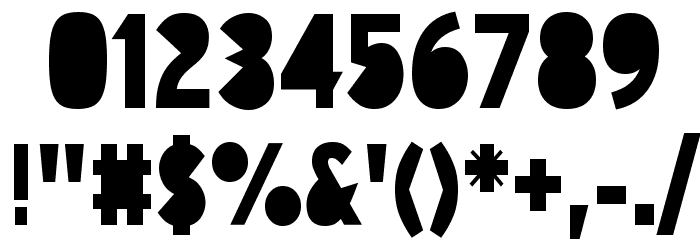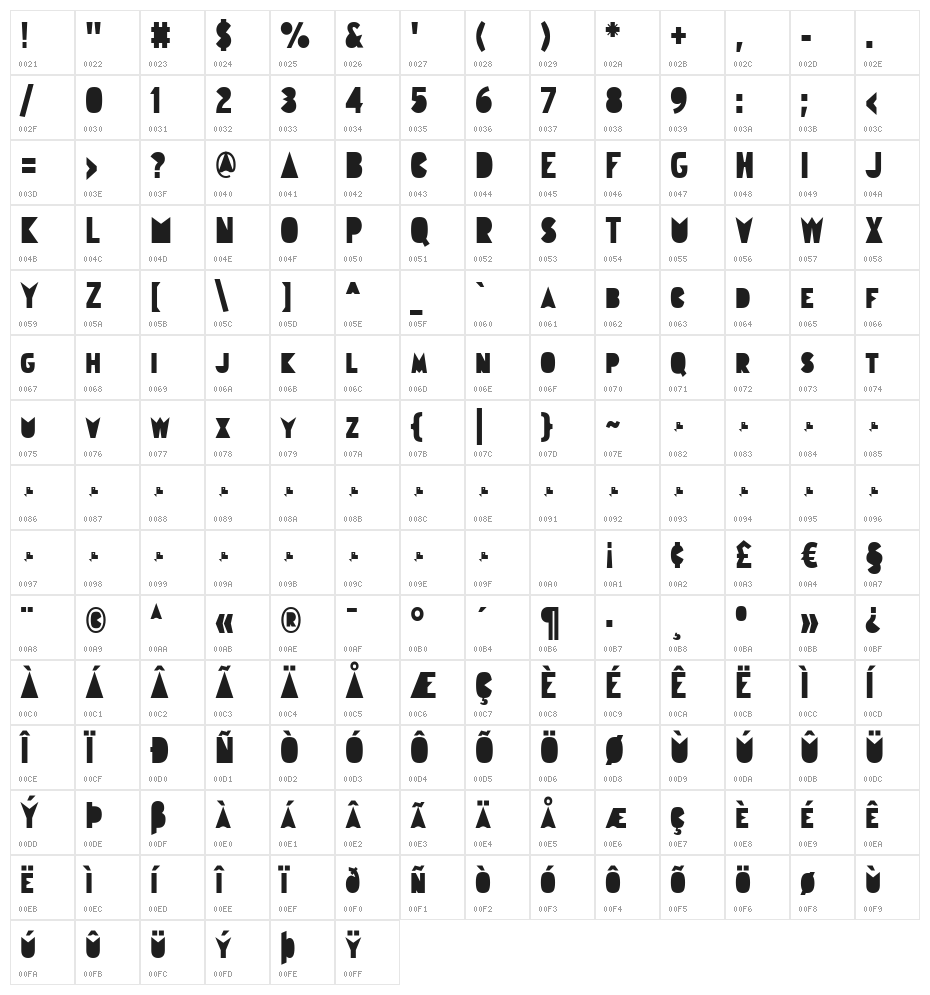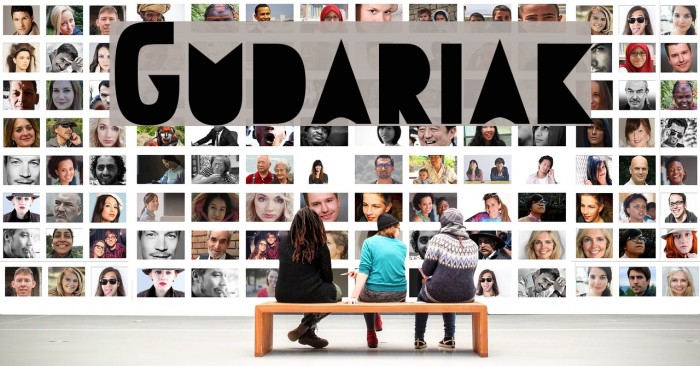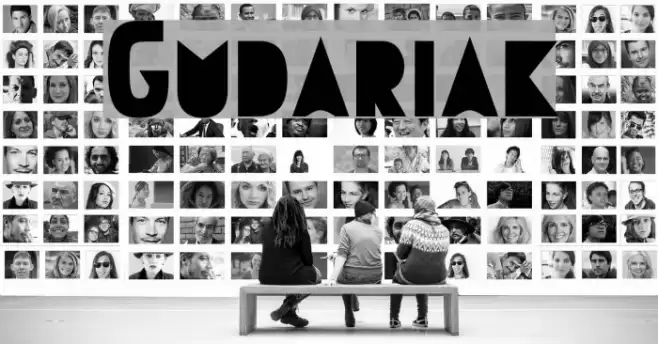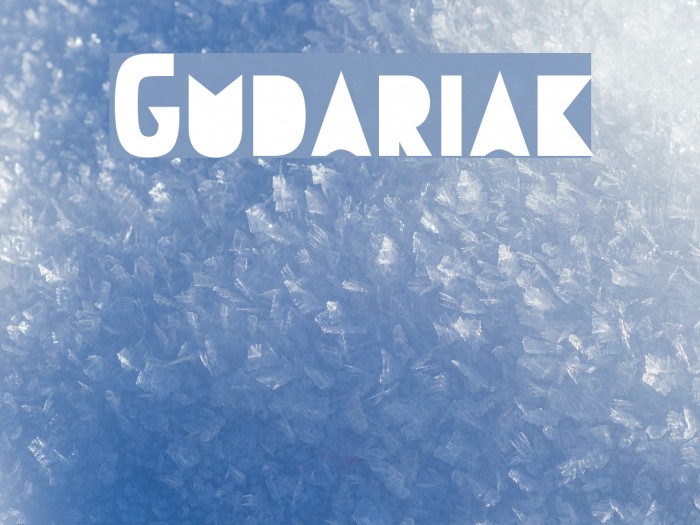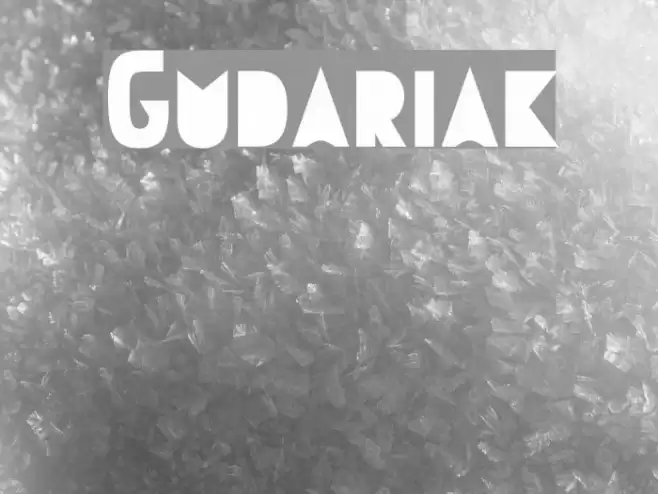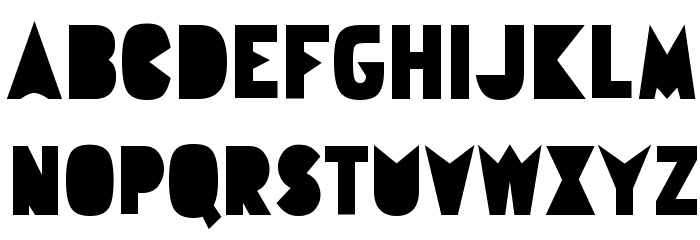
Gudariak Font
Gudariak Description
This font features bold, geometric shapes with a distinct, angular design. The characters are crafted with sharp edges and a strong presence, making them stand out prominently. The uppercase letters are particularly striking, with unique cuts and angles that give the font a modern and edgy feel. The numbers and special characters maintain this bold style, ensuring consistency across all elements. The overall appearance is both artistic and assertive, suitable for making a strong visual impact.